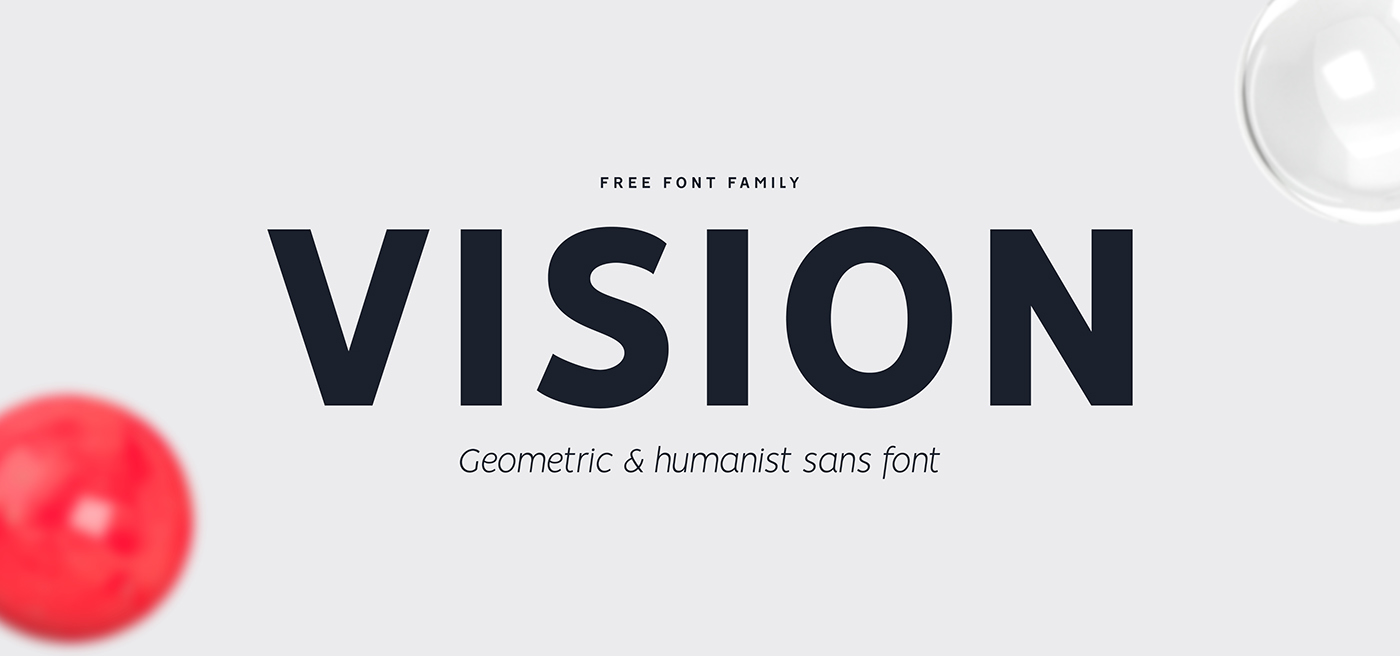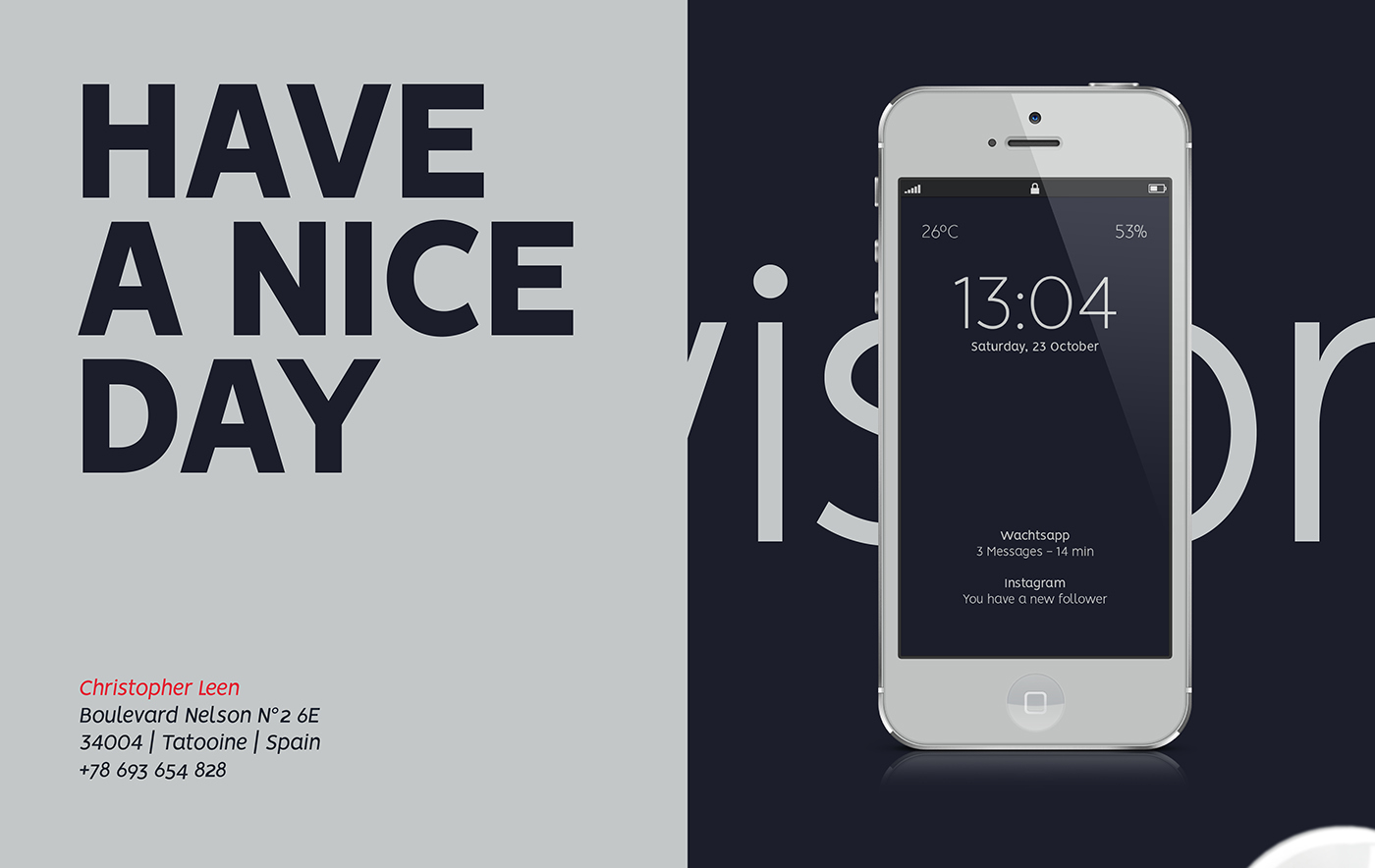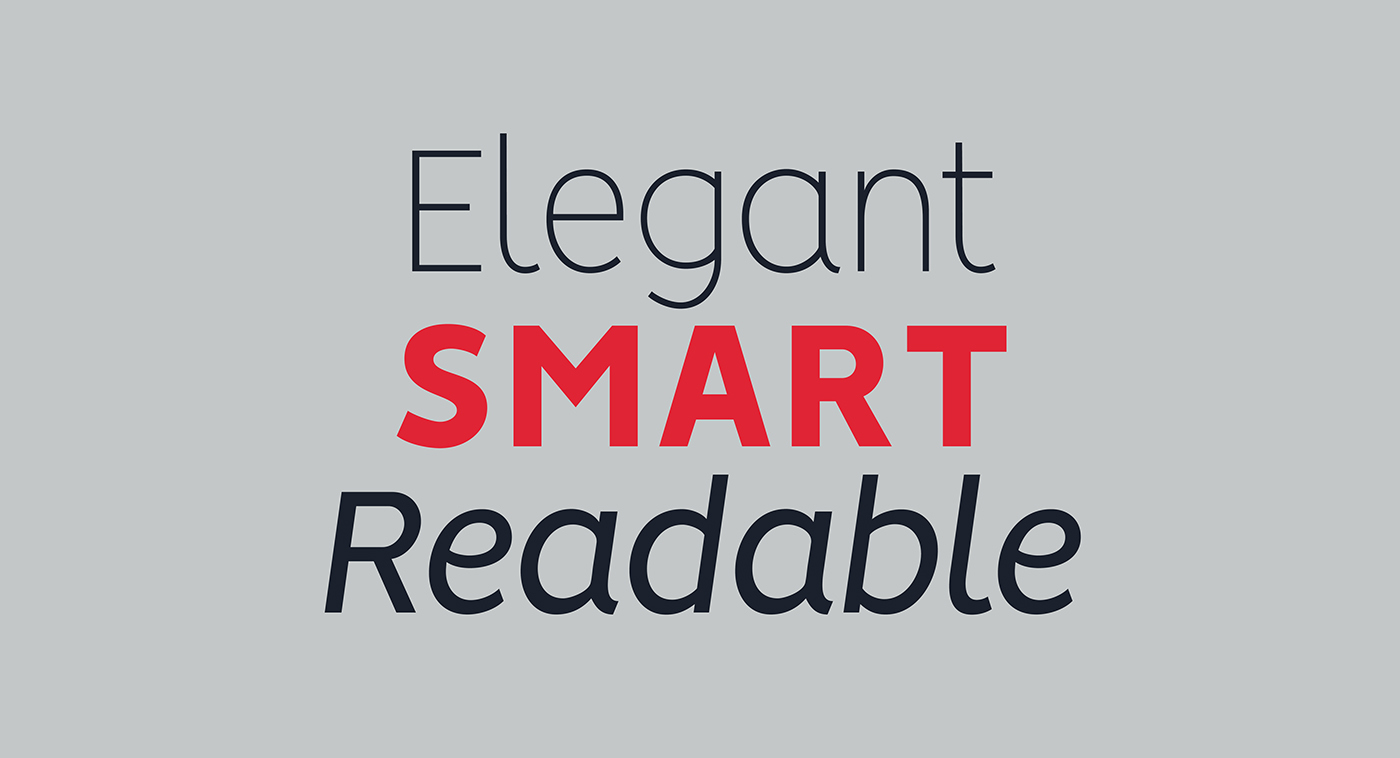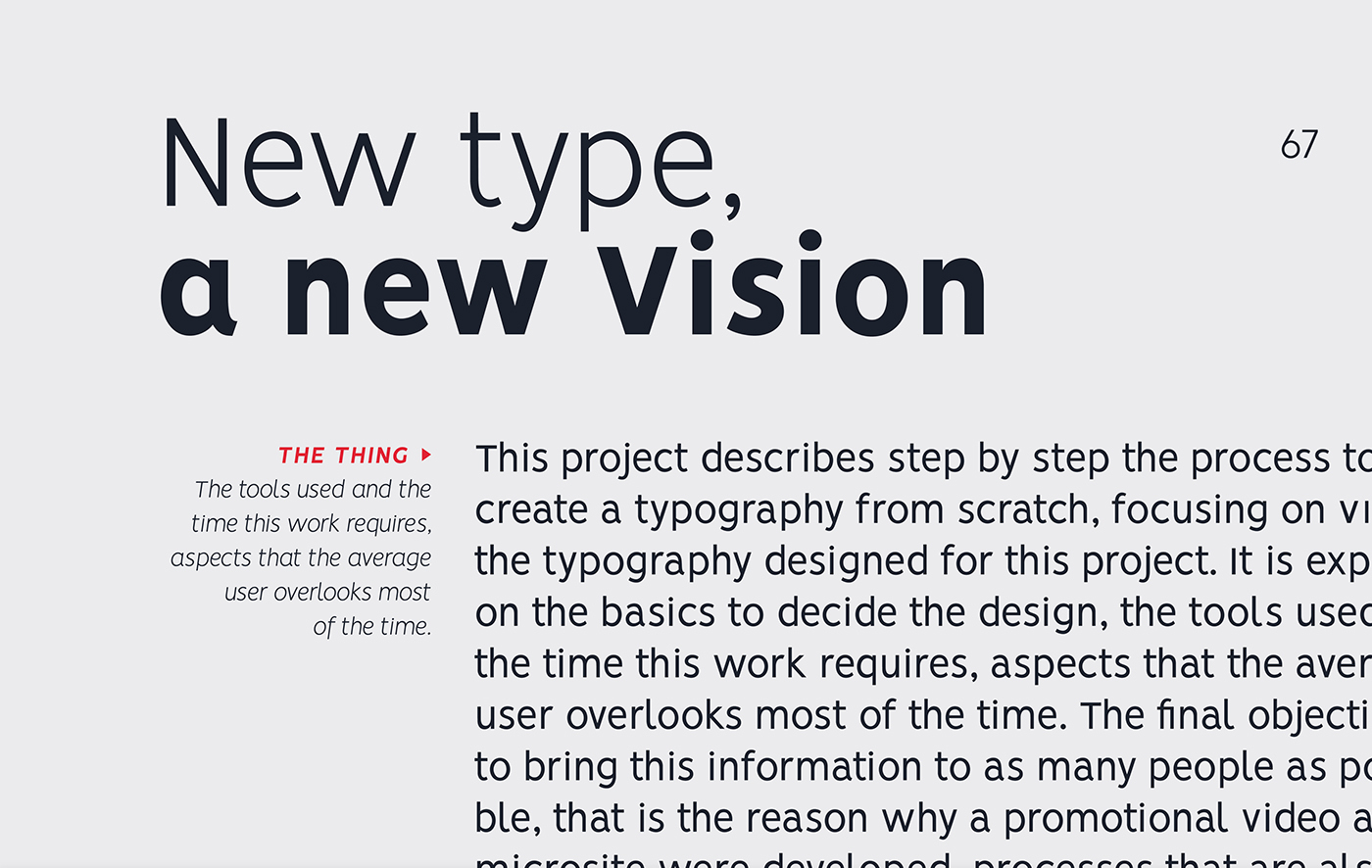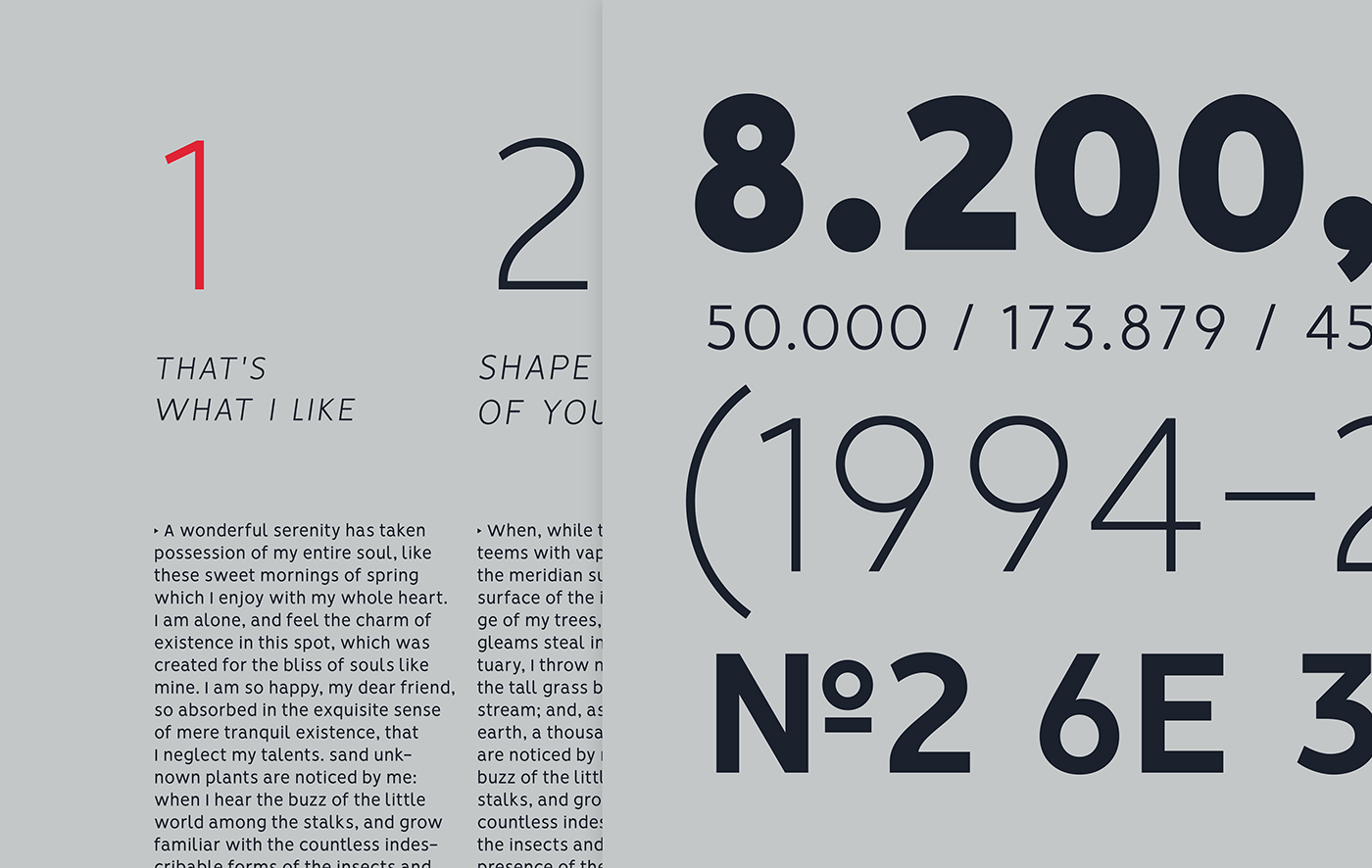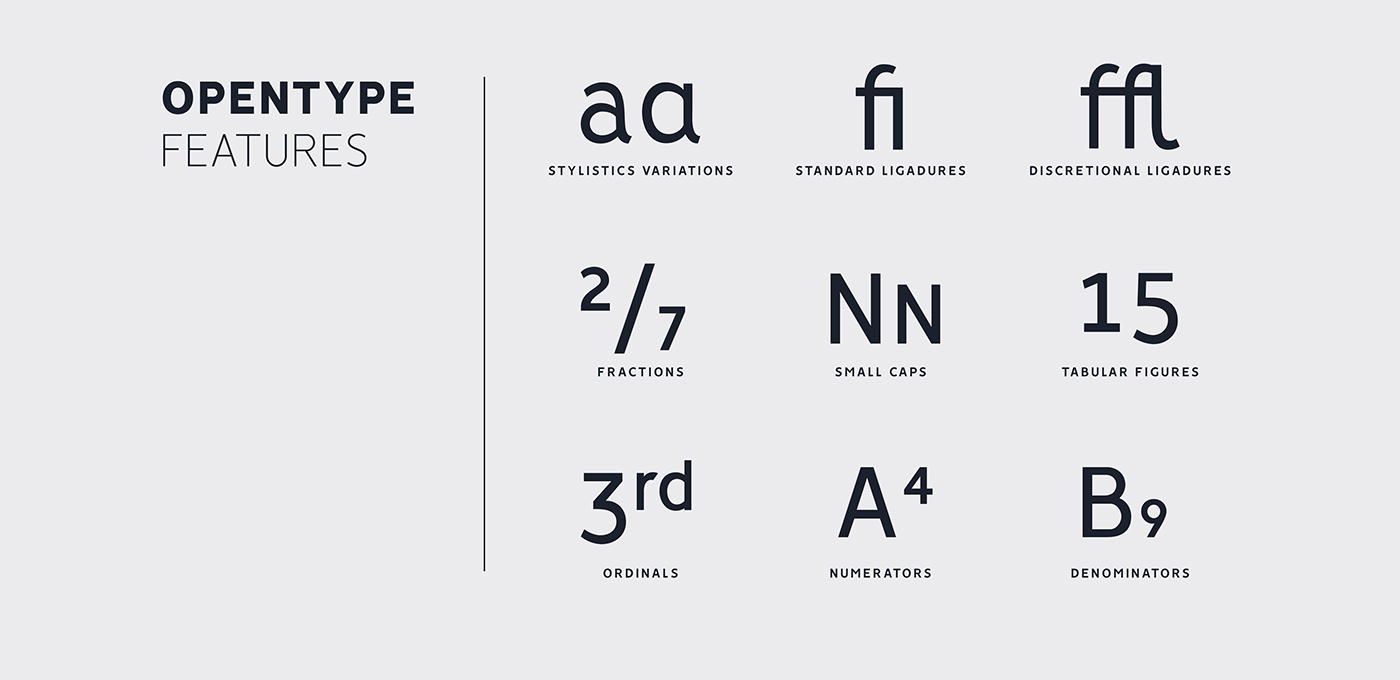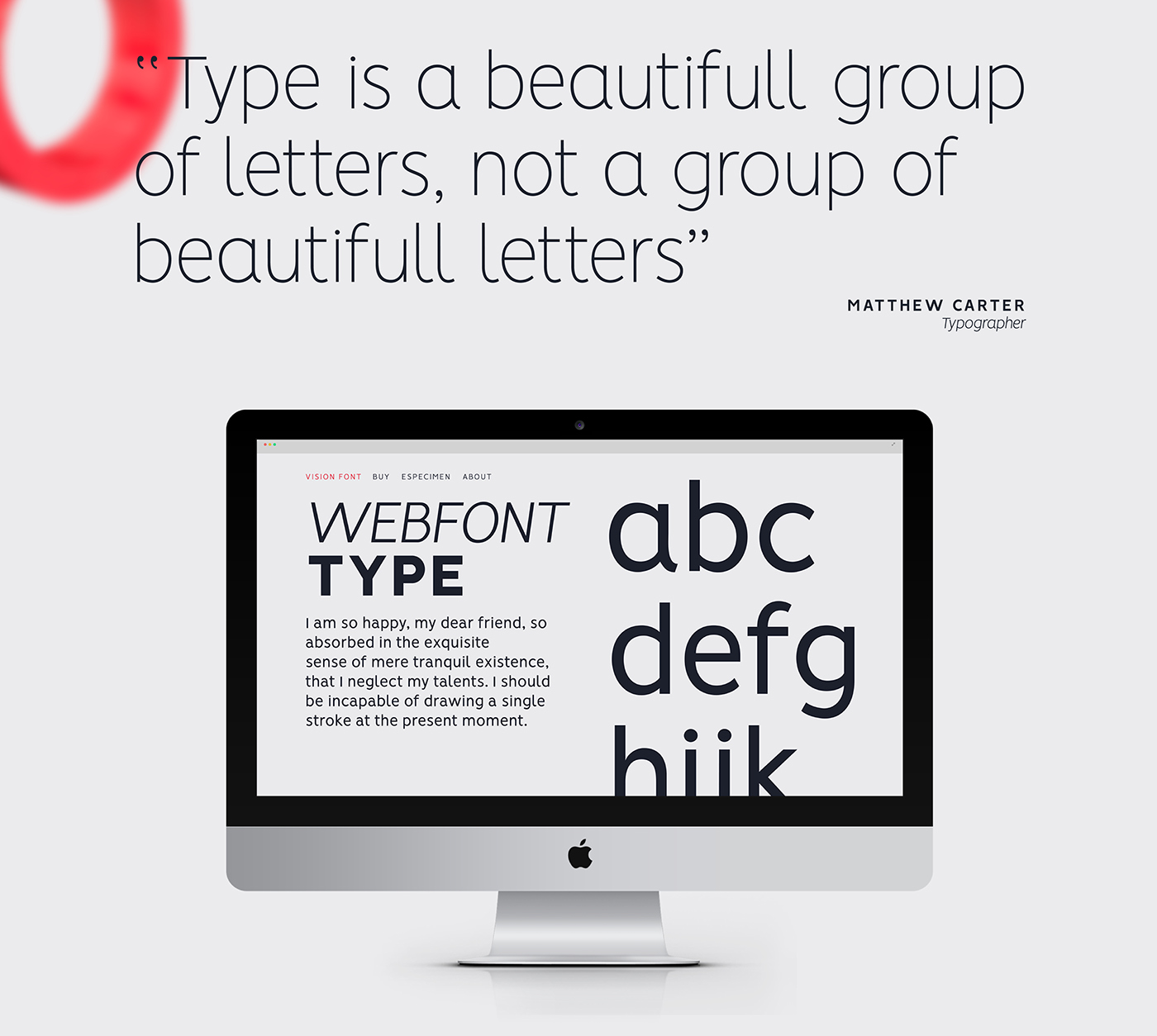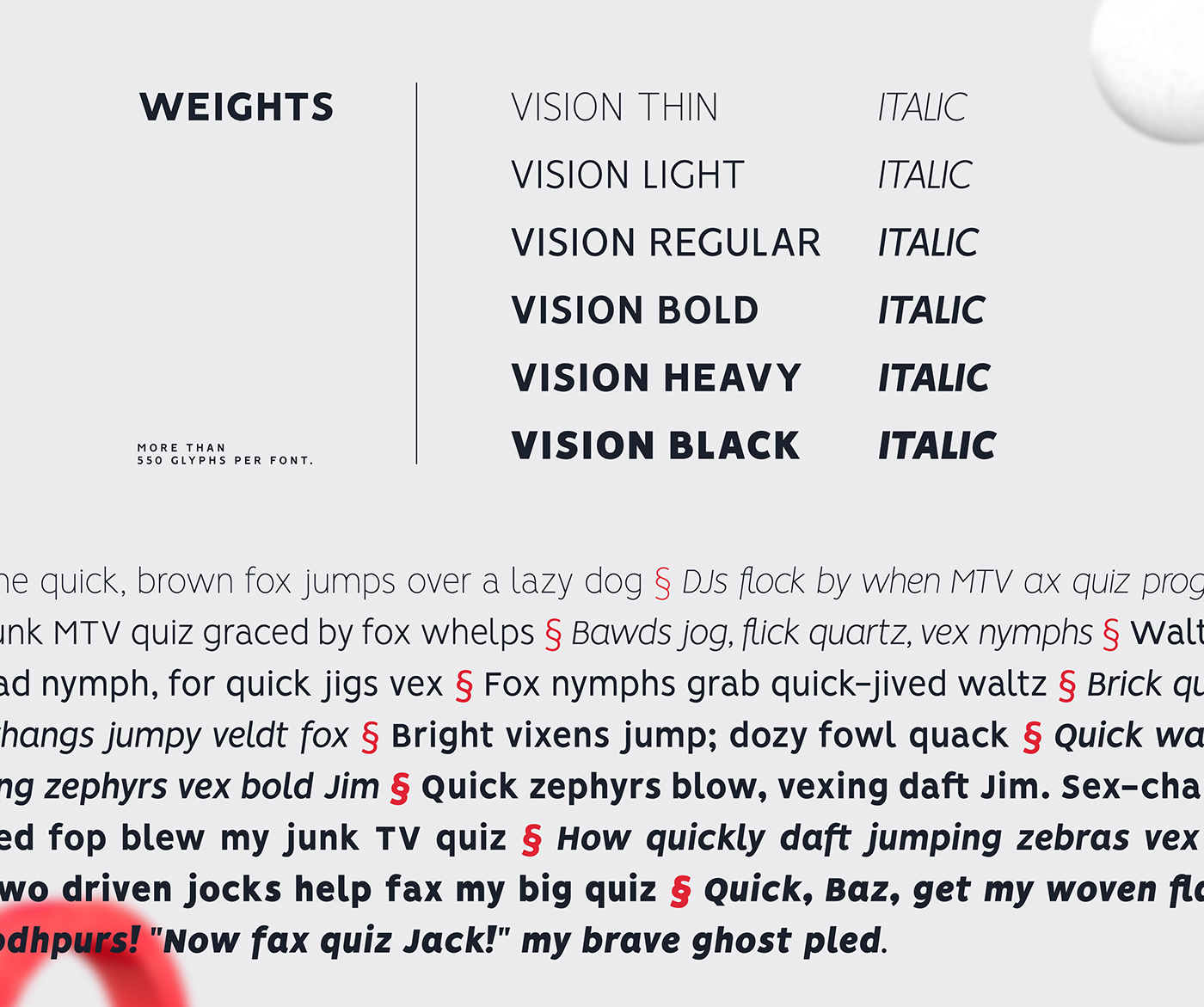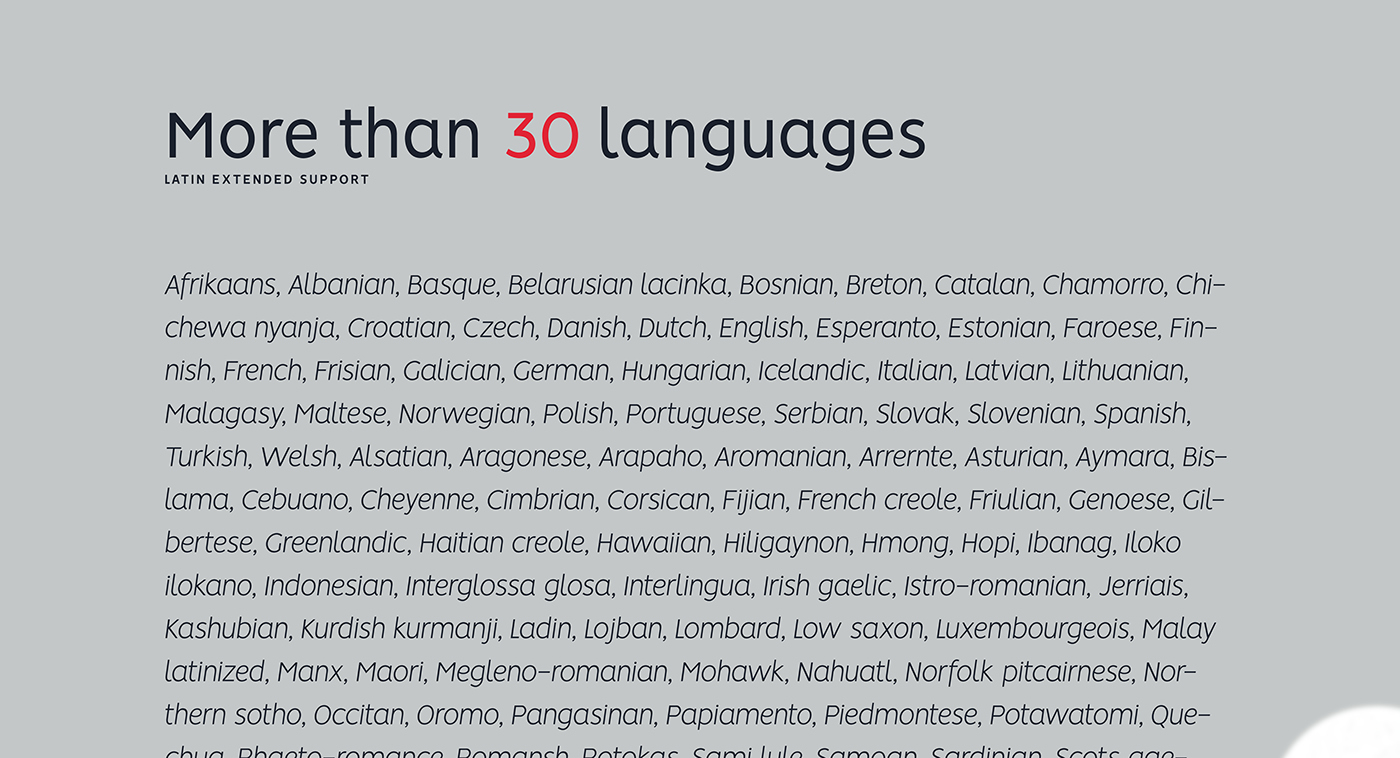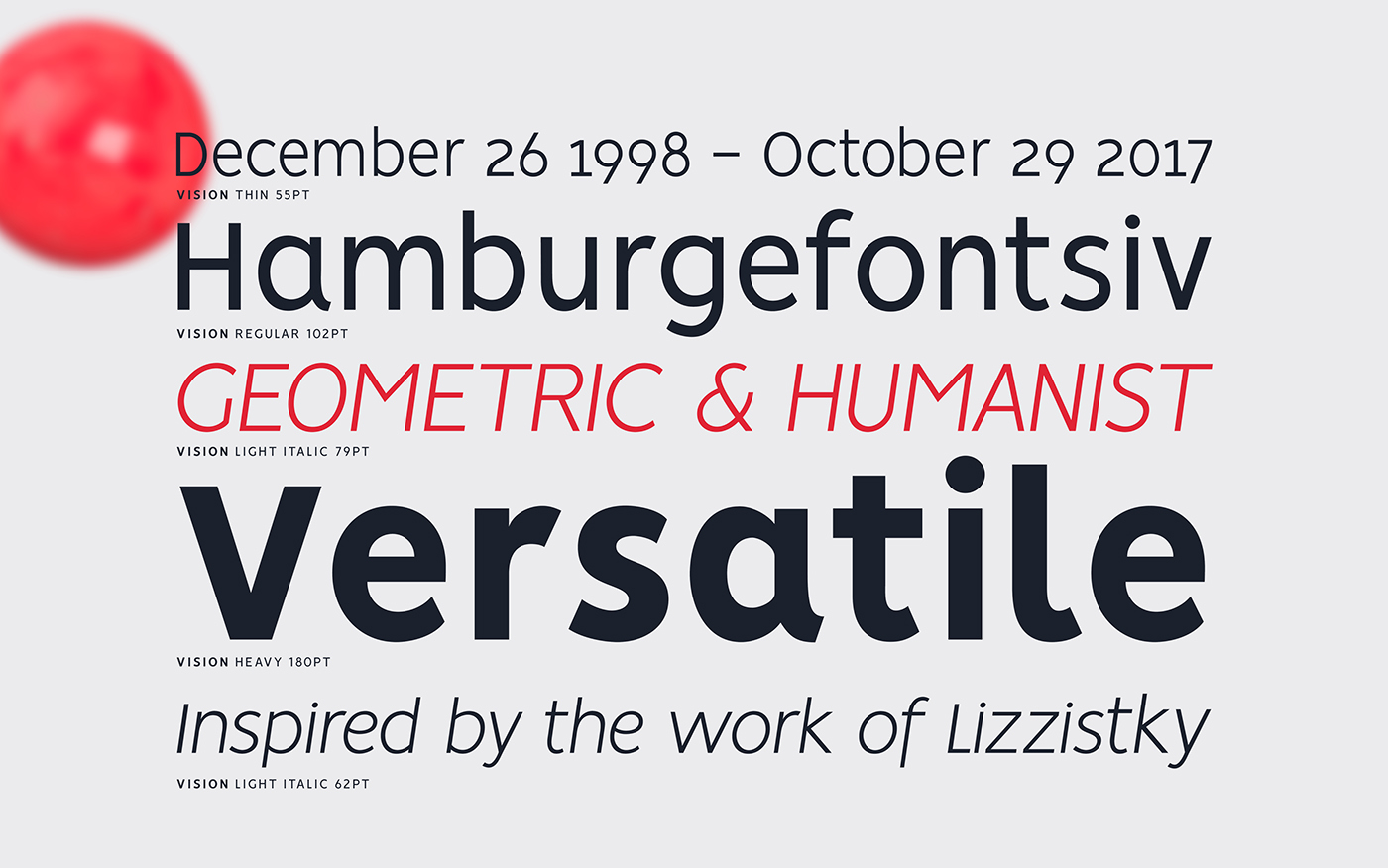
Vision is a clean, geo-humanist typeface family of 12 fonts. It was designed by bydani from Spain. Vision is a versatile typeface, perfect as display and for small text as well. It has extended ligatures, opentype features and alternatives glyphs which provide maximum flexibility. Free for personal and commercial use!